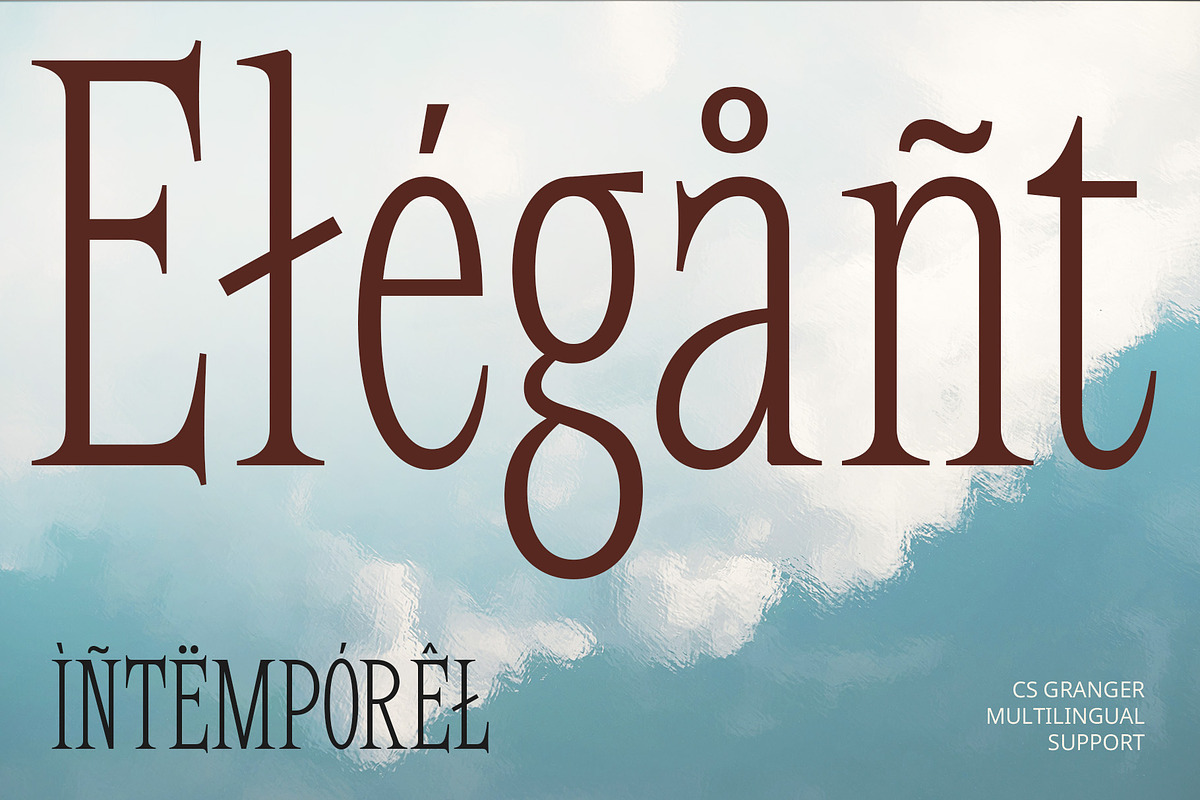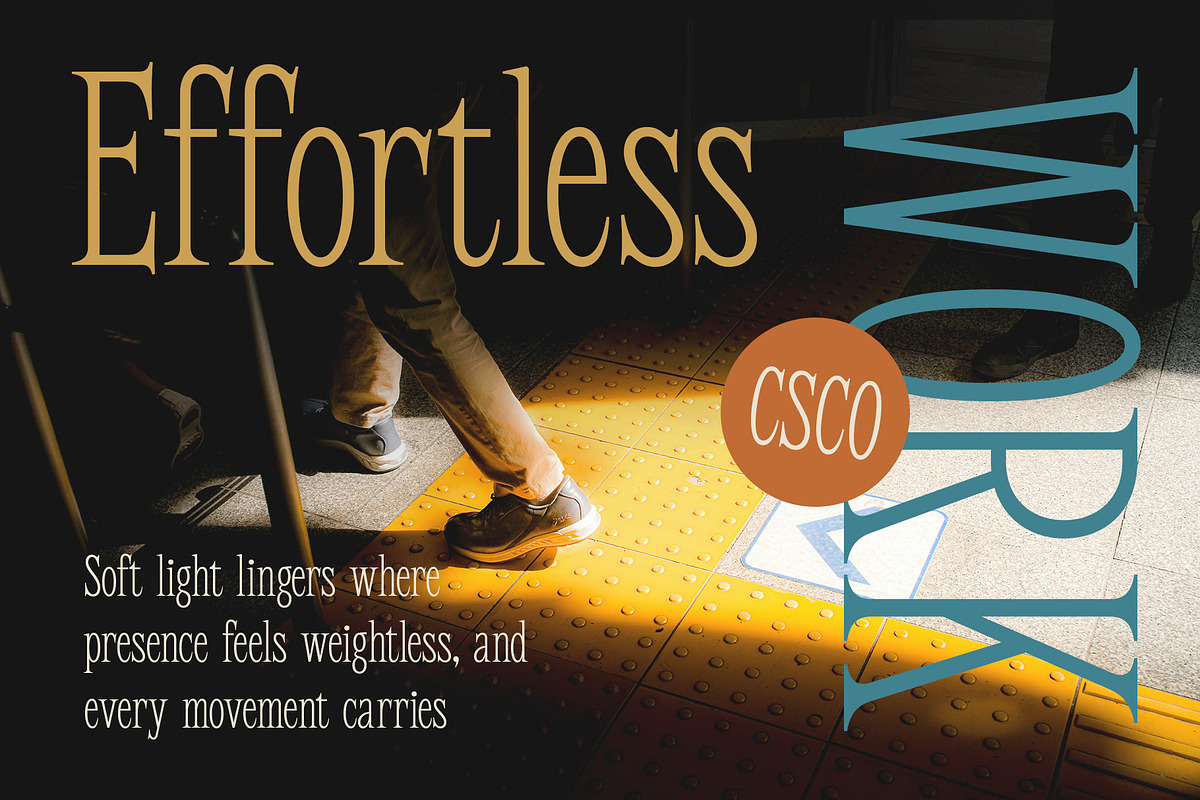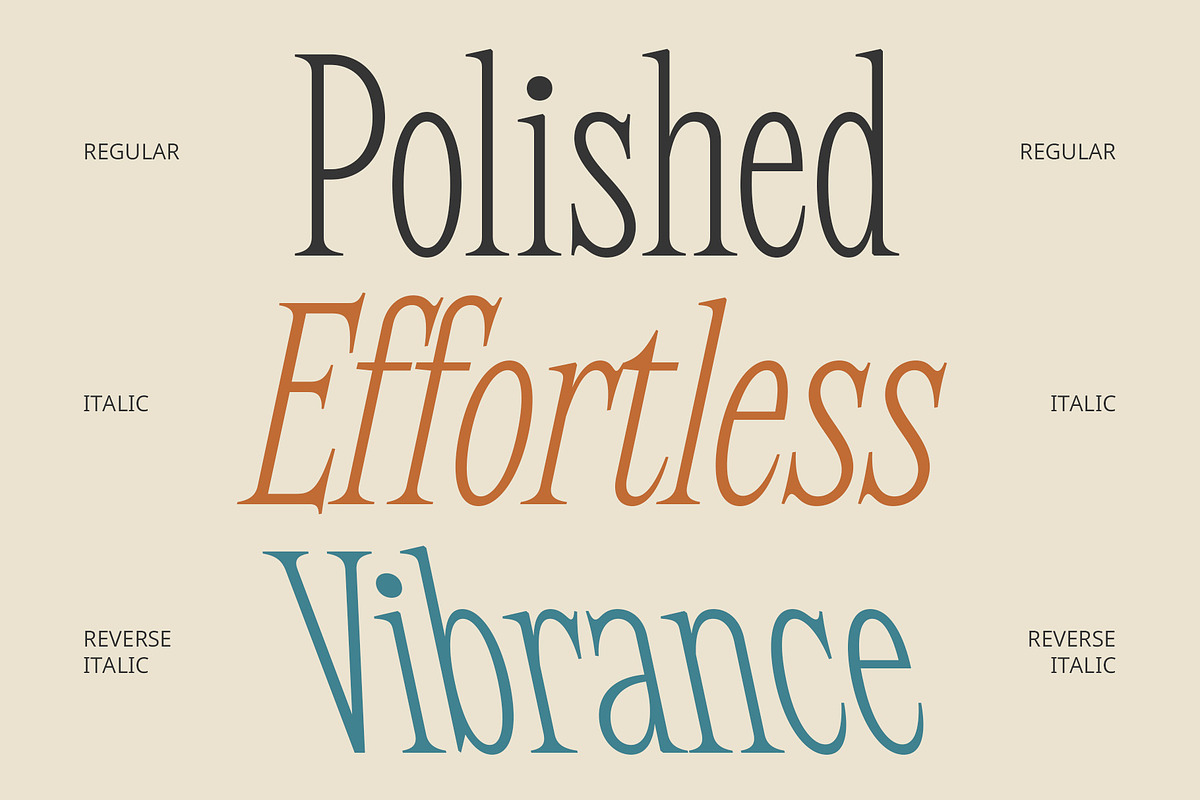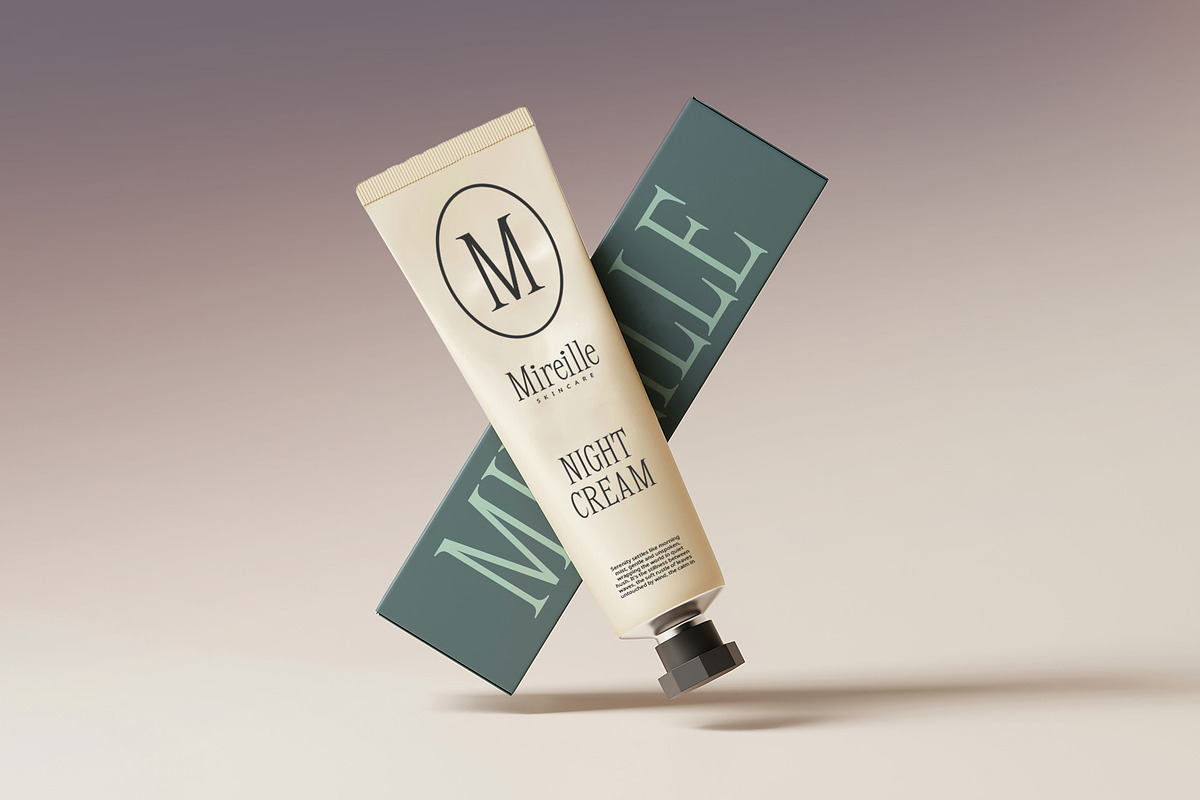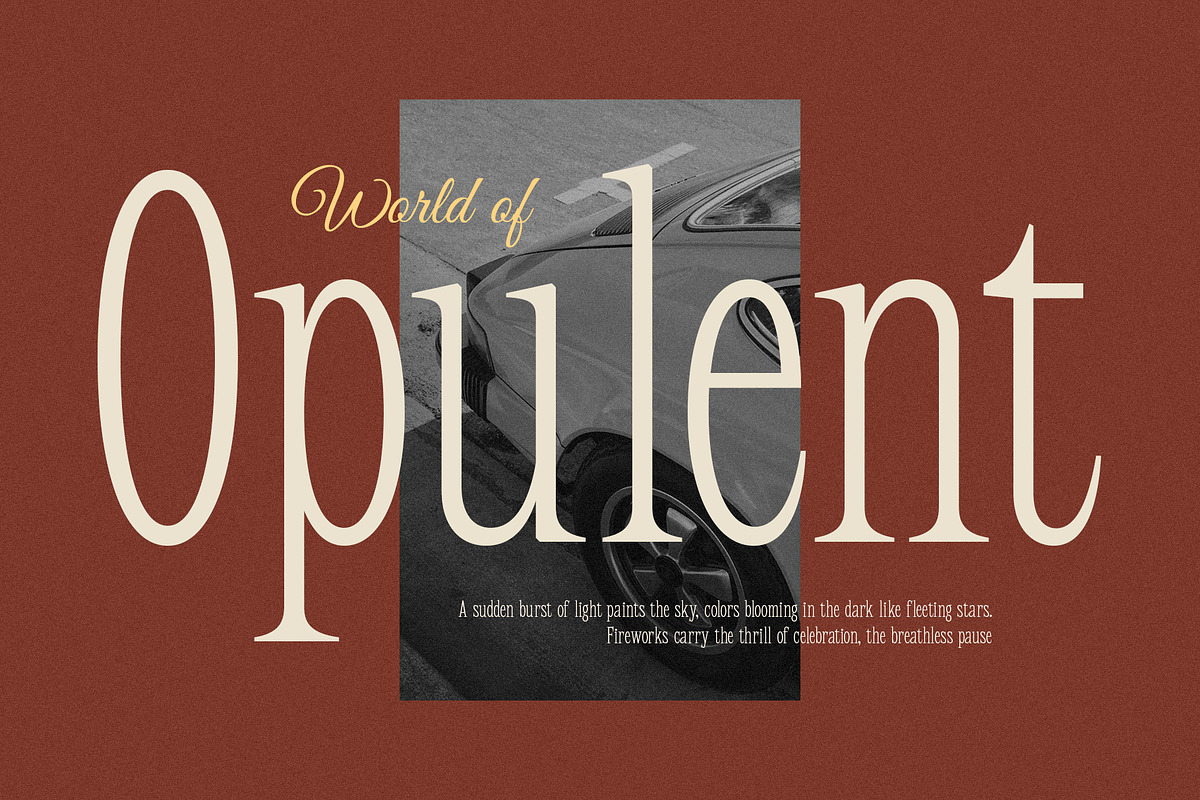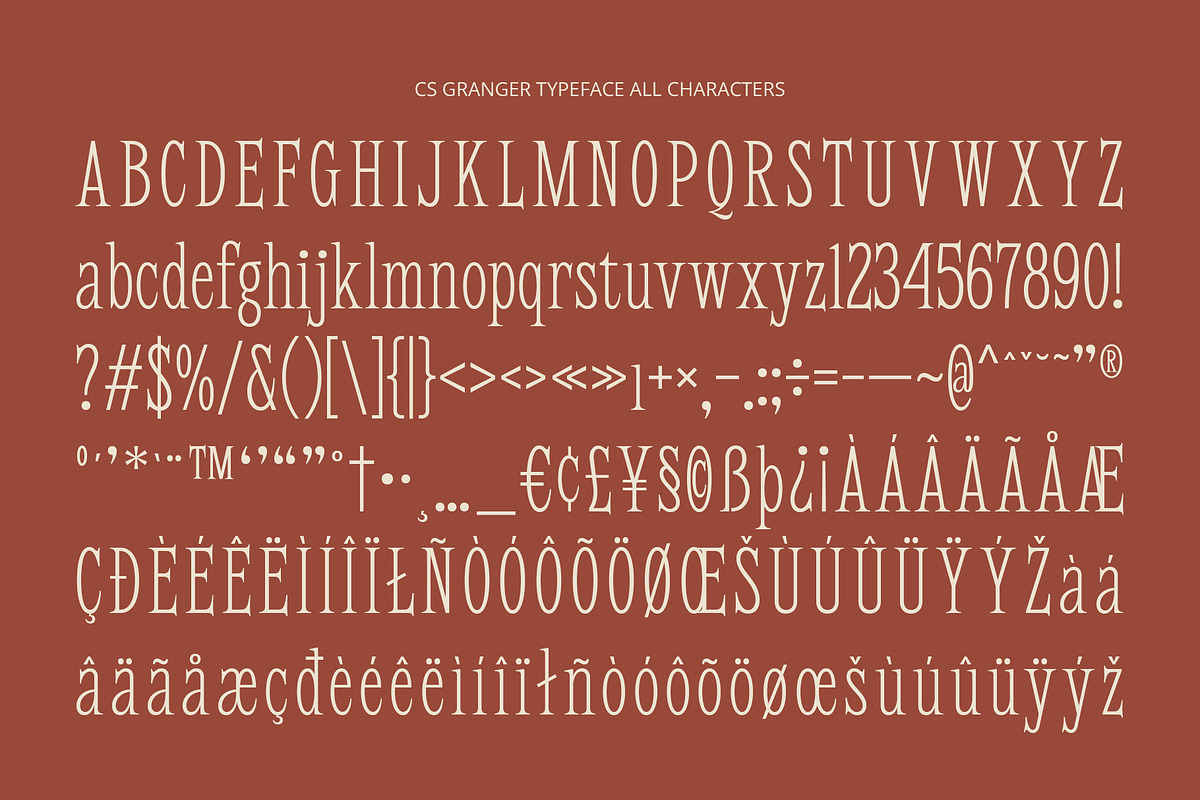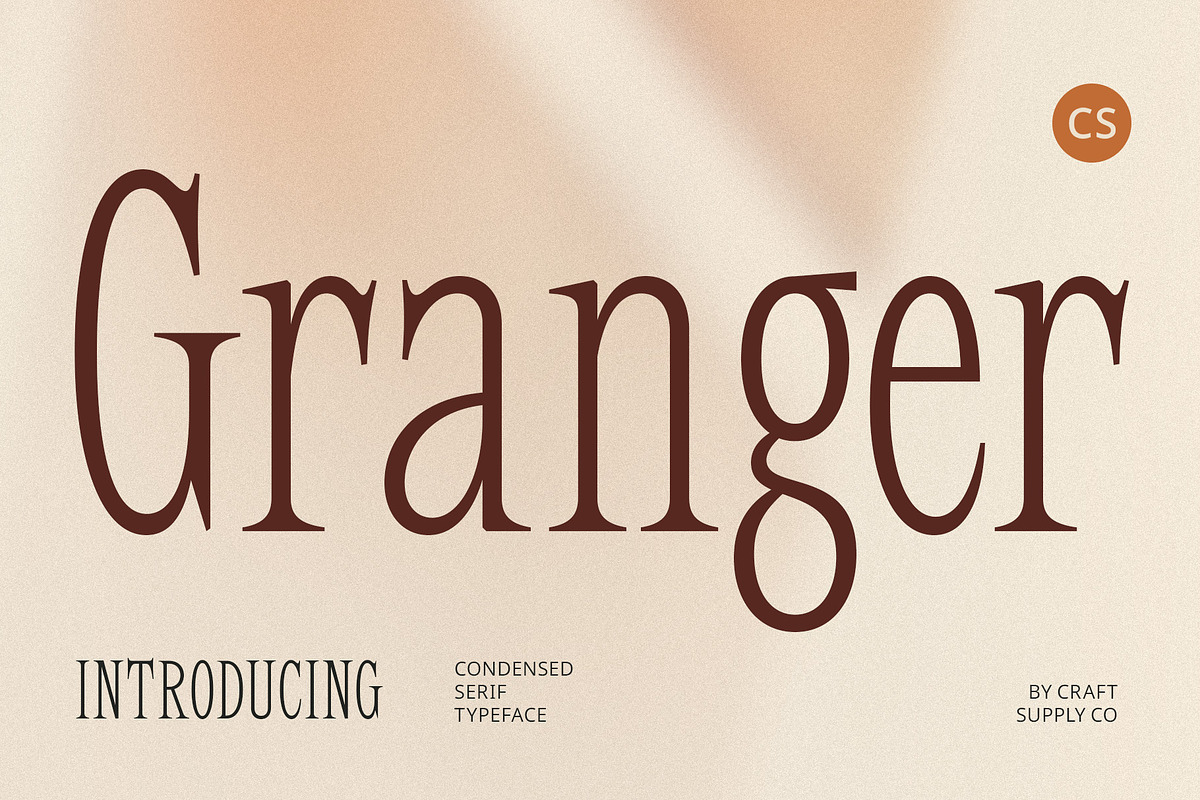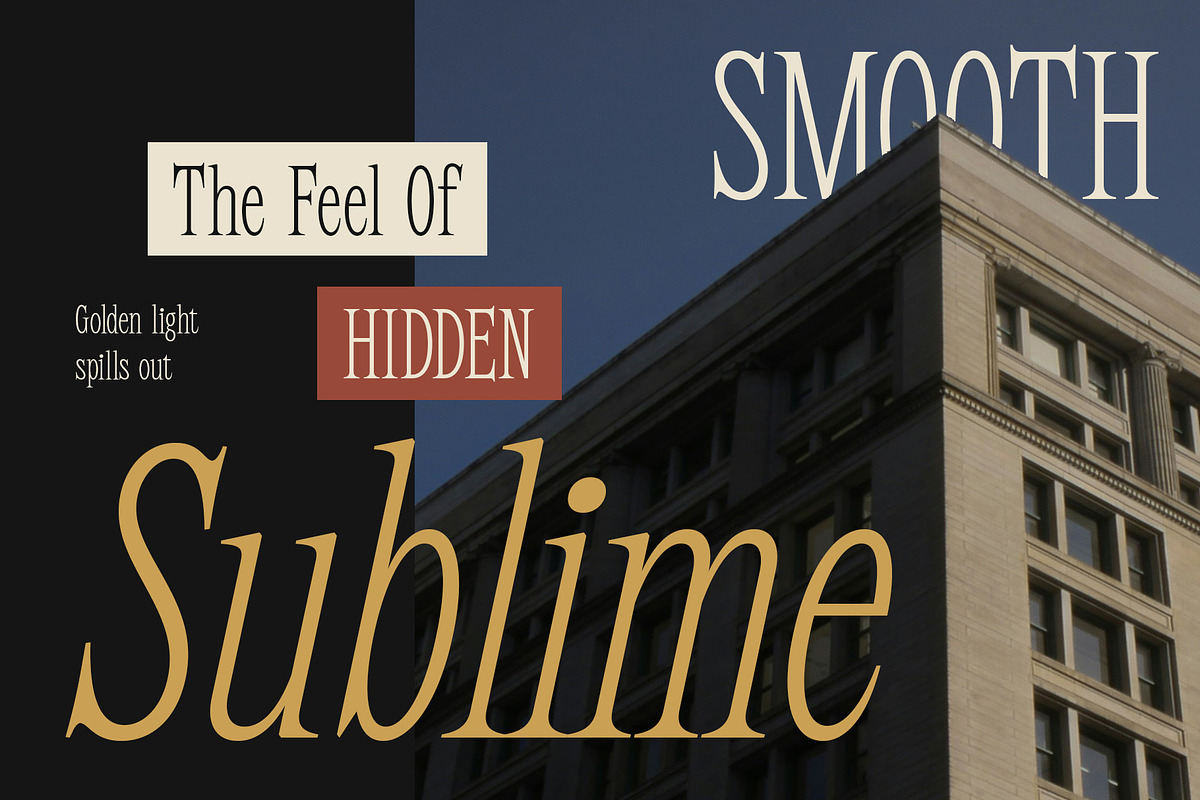
CS Granger – Condensed Font
CS Granger – Condensed Font with Classic Refinement
Elegant Serif with a Space-Saving Structure CS Granger is a modern serif font that features a condensed, clean, and contemporary structure—perfect for delivering information in a slim and space-efficient form. Its tall letterforms and refined spacing allow for high readability, even in limited layout space, making it ideal for editorial headlines, packaging, or refined typographic systems.
Balance of Classic Elegance and Modern Clarity With finely crafted serifs and slender proportions, CS Granger projects a professional, timeless, and sophisticated impression. It captures the classic essence of traditional serif fonts while embracing a modern aesthetic that feels fresh, polished, and purposeful in both digital and print environments.
Versatile for High-End Editorial and Corporate Branding Designed for elegance and efficiency, CS Granger excels in editorial design, luxury branding, and corporate identities that require a balance of refinement and authority. Whether used in magazine mastheads, logos, or sophisticated promotional materials, it offers a confident voice that elevates any visual narrative.
Timeless Typography for Modern Communication CS Granger’s structure is engineered to carry your message with grace and confidence. It suits projects that blend tradition with innovation—perfect for fashion editorials, boutique branding, or professional presentations that call for a slim, stylish, and enduring typographic style.
- CS Granger Regular
- CS Granger Italic
- CS Granger Reverse Italic